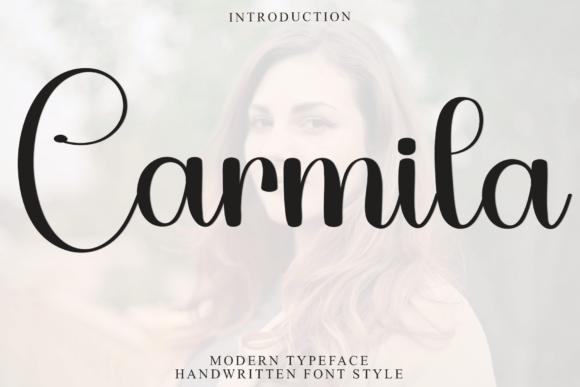
Carmila Font: A Beautiful and Versatile Typeface for Creative Projects
The Carmila font is a stunning and eye-catching typeface that has been designed with a soft, unique touch. Its distinctive strokes give it a special character, making it a meaningful and versatile font for future use. With its various characters, the Carmila font is perfect for design projects, crafts, and other creative works. In this article, we will explore the features and benefits of the Carmila font, and discuss its compatibility with various applications.
What is Carmila Font?
The Carmila font is a beautifully crafted typeface that stands out from the crowd due to its unique and soft design. The font has been carefully crafted to provide a distinctive touch to any design project, making it perfect for creative works. The Carmila font is characterized by its flowing strokes, elegant lines, and beautiful curves, which give it a special charm.
Key Features of Carmila Font
The Carmila font comes with a range of features that make it an ideal choice for designers and creative professionals. Some of the key features of the Carmila font include:
- Unique and Soft Design: The Carmila font has a unique and soft design that sets it apart from other fonts.
- Distinctive Strokes: The font has distinctive strokes that give it a special character.
- Variety of Characters: The Carmila font comes with a range of characters, making it perfect for design projects, crafts, and other creative works.
- Versatility: The font is versatile and can be used for a wide range of projects, from design and crafts to creative works.
Benefits of Using Carmila Font
The Carmila font offers a range of benefits to designers and creative professionals. Some of the benefits of using the Carmila font include:
- Enhances Designs: The Carmila font can enhance your designs, making them appealing to a wide range of audiences.
- Ideal for Creative Projects: The font is perfect for design projects, crafts, and other creative works.
Use Cases for Carmila Font
The Carmila font can be used for a wide range of projects, including:
- Design Projects: The font is perfect for design projects, such as branding, packaging, and advertising.
- Crafts: The Carmila font can be used for crafts, such as scrapbooking and card making.
- Creative Works: The font is ideal for creative works, such as writing and art.
- Web Design: The Carmila font can be used for web design, including website headers, titles, and captions.
In conclusion, the Carmila font is a beautiful and versatile typeface that is perfect for design projects, crafts, and other creative works. Its unique and soft design, distinctive strokes, and variety of characters make it a great choice for designers and creative professionals. The font is compatible with various applications, including Windows and open-source platforms, making it a versatile choice for a wide range of projects.
- Q: What is the Carmila font? A: The Carmila font is a beautifully crafted typeface that has been designed with a soft, unique touch.
- Q: What are the key features of the Carmila font? A: The Carmila font comes with a range of features, including a unique and soft design, distinctive strokes, and a variety of characters.
- Q: What are the benefits of using the Carmila font? A: The Carmila font offers a range of benefits, including enhancing designs, being ideal for creative projects, and being compatible with various applications.